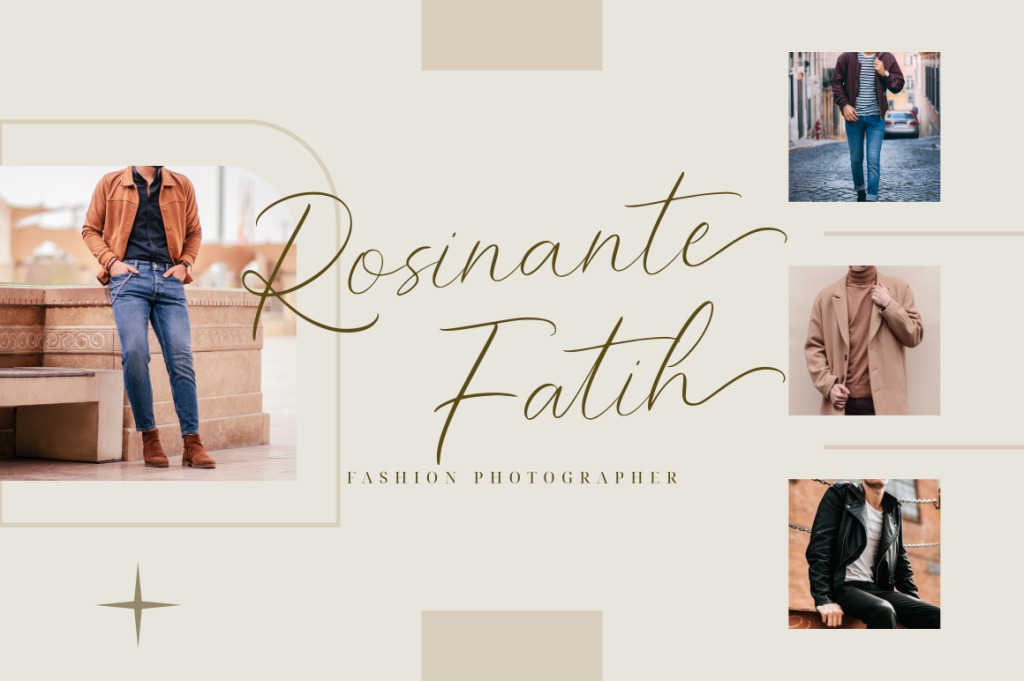
Wonderful Feather Font
Wonderful Feather Script Font is a handcrafted script, that gives a feel of girly font type, made from natural handwriting, and carefully designed to get maximum results and is perfect for pairing with serif and sans serif fonts.
Wonderful Feather is perfect for branding projects, logo, wedding designs, social media posts, advertisements, product packaging, product designs, label, photography, watermark, invitation, stationery and any projects that need handwriting taste.